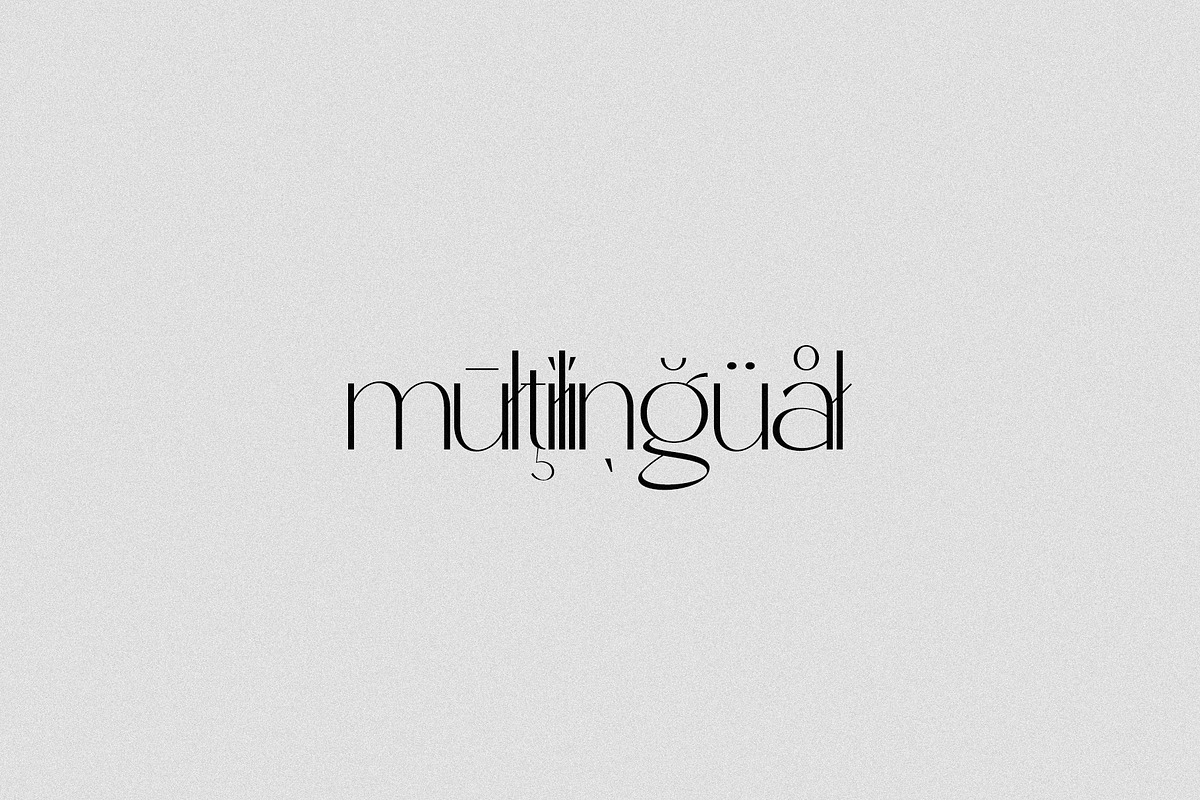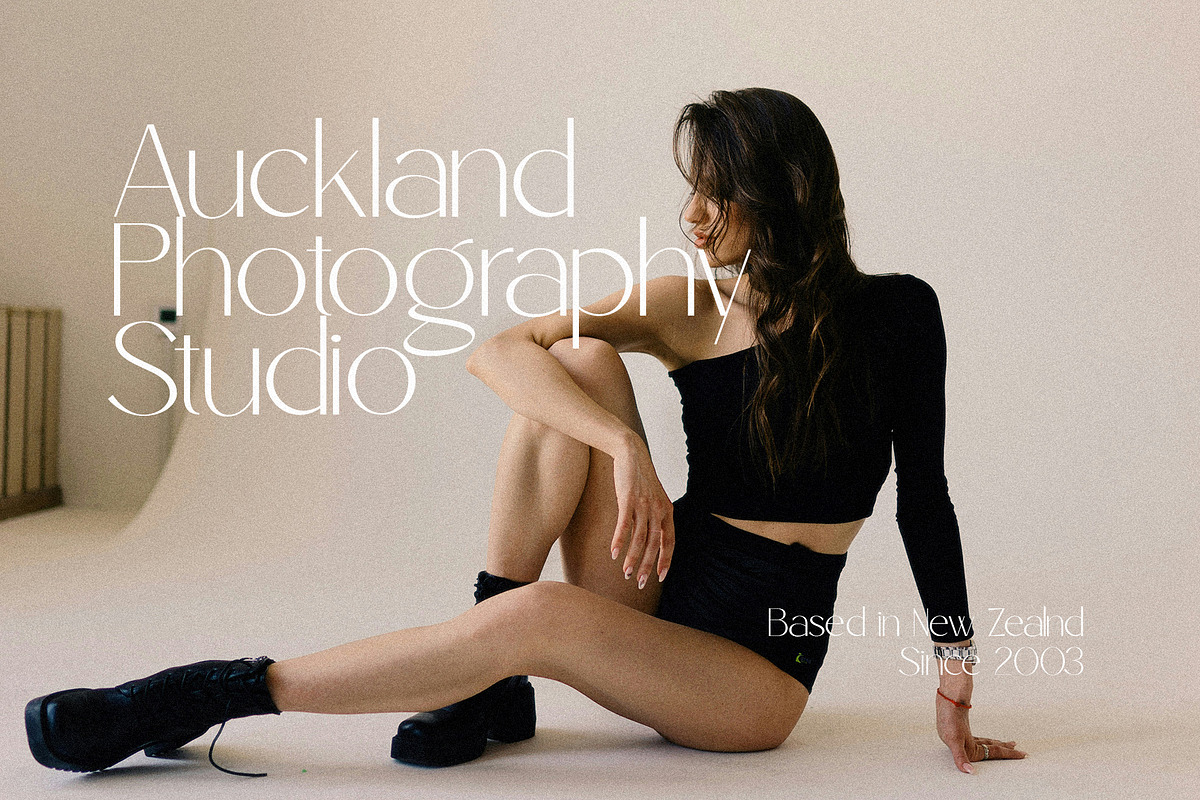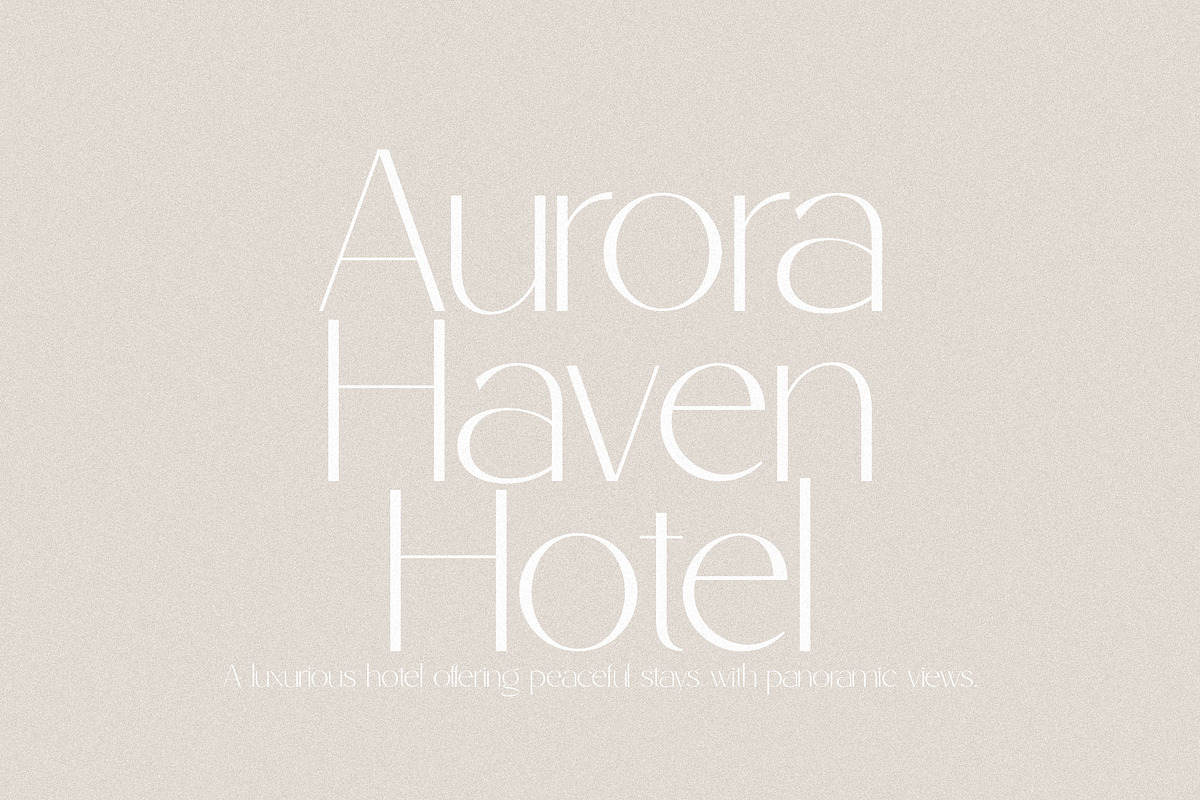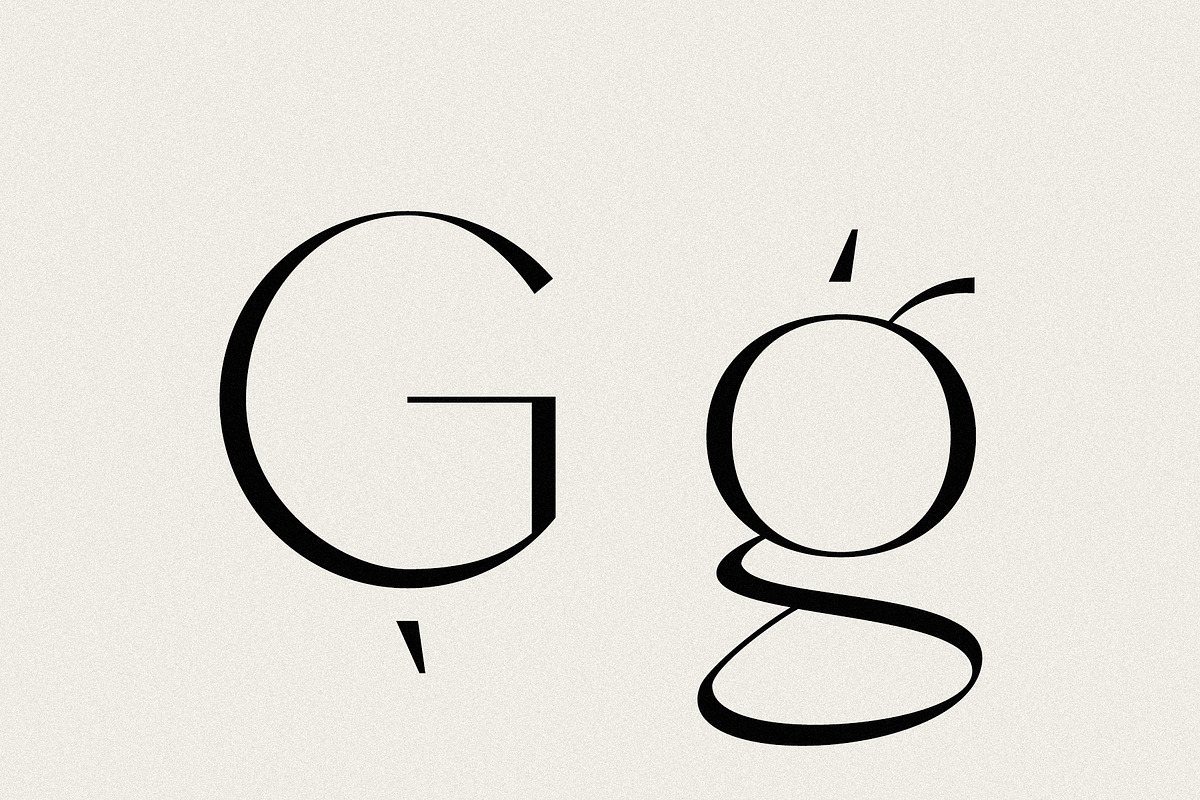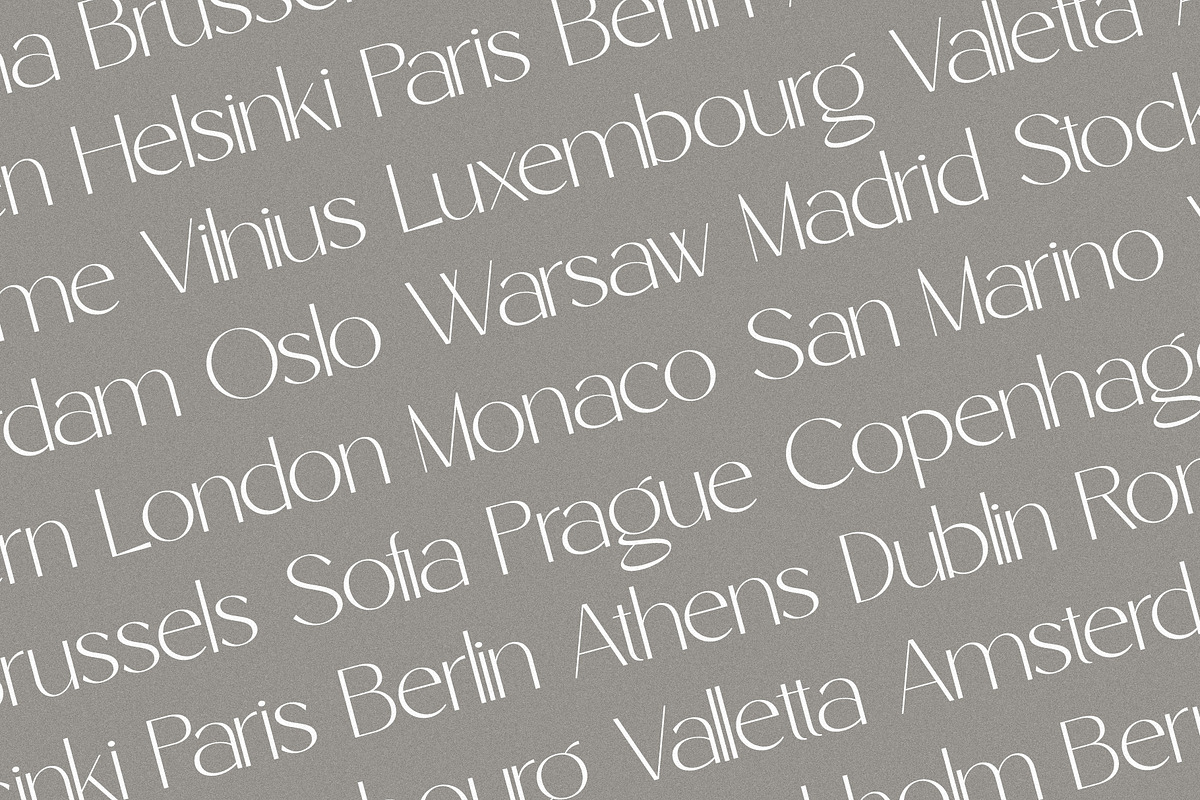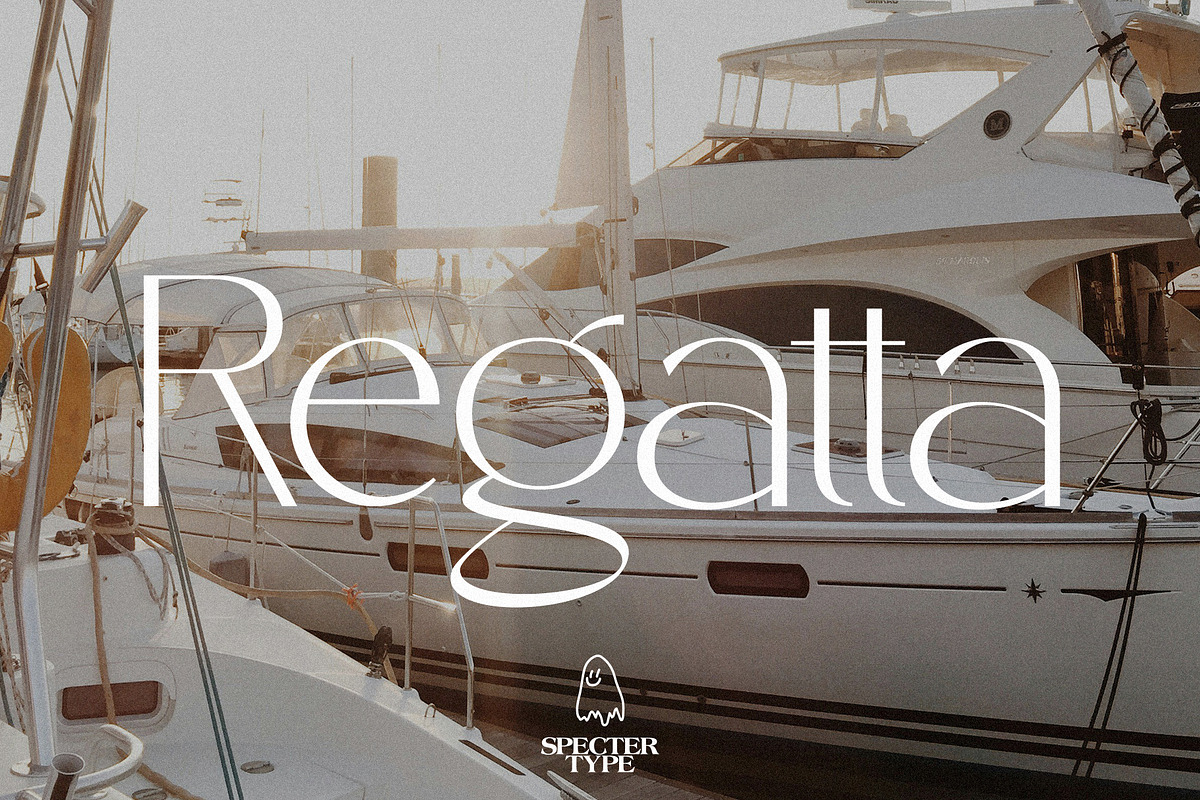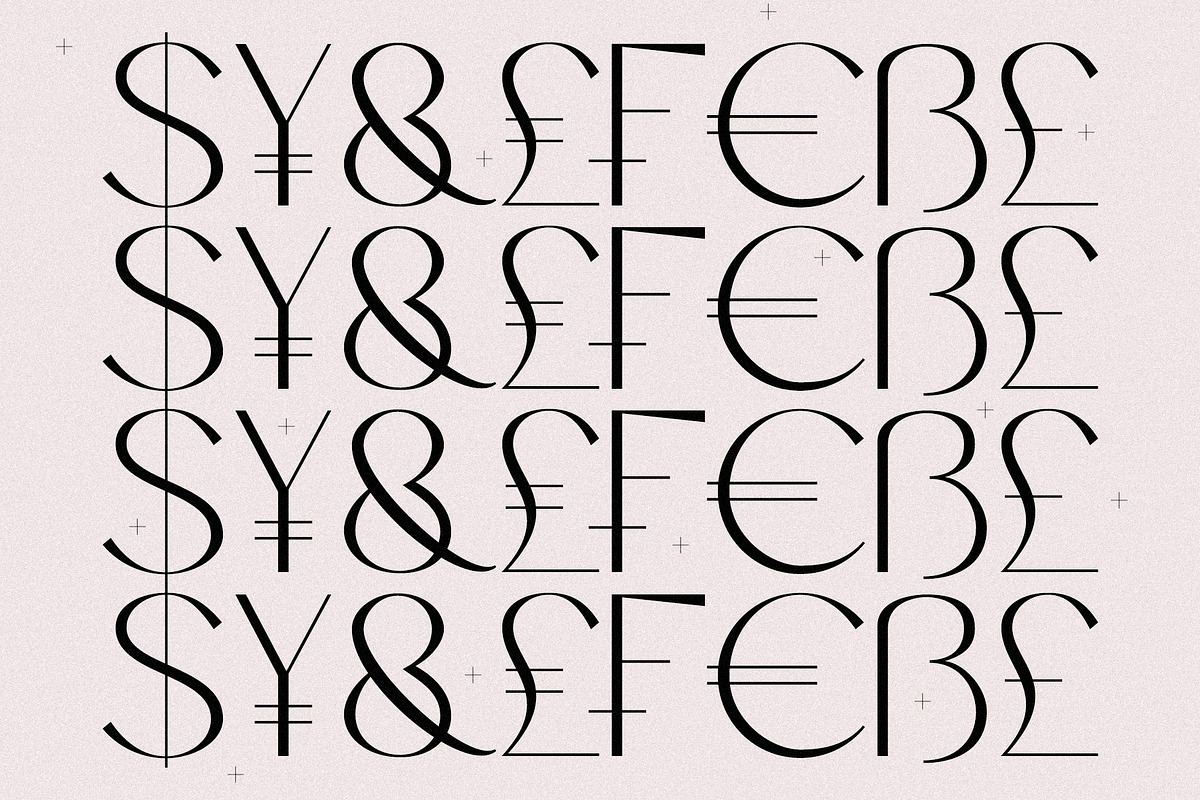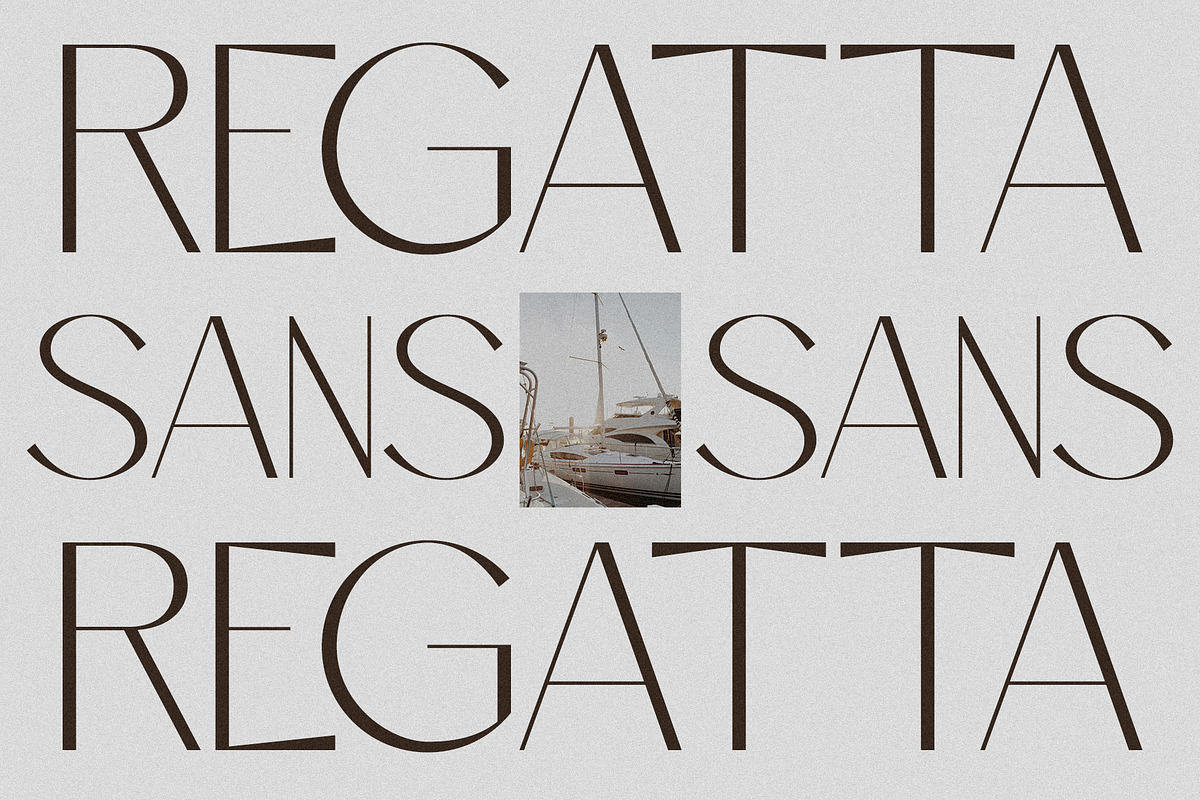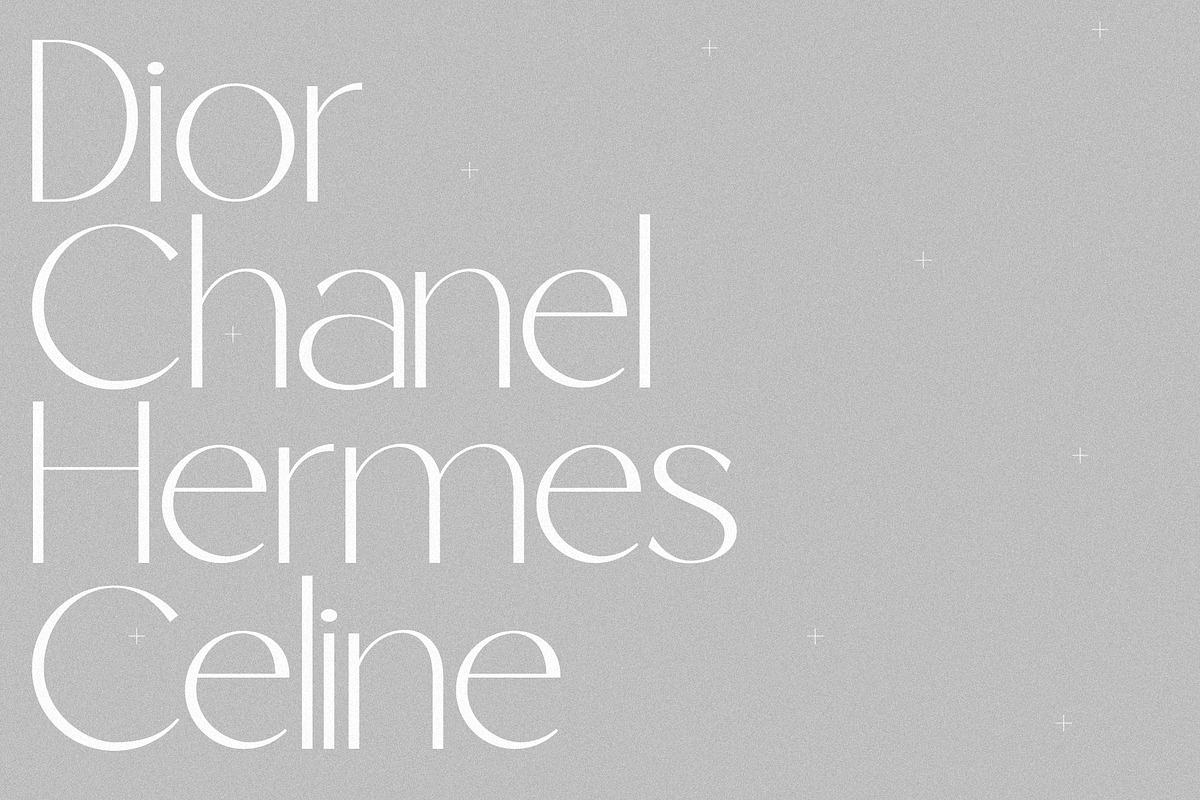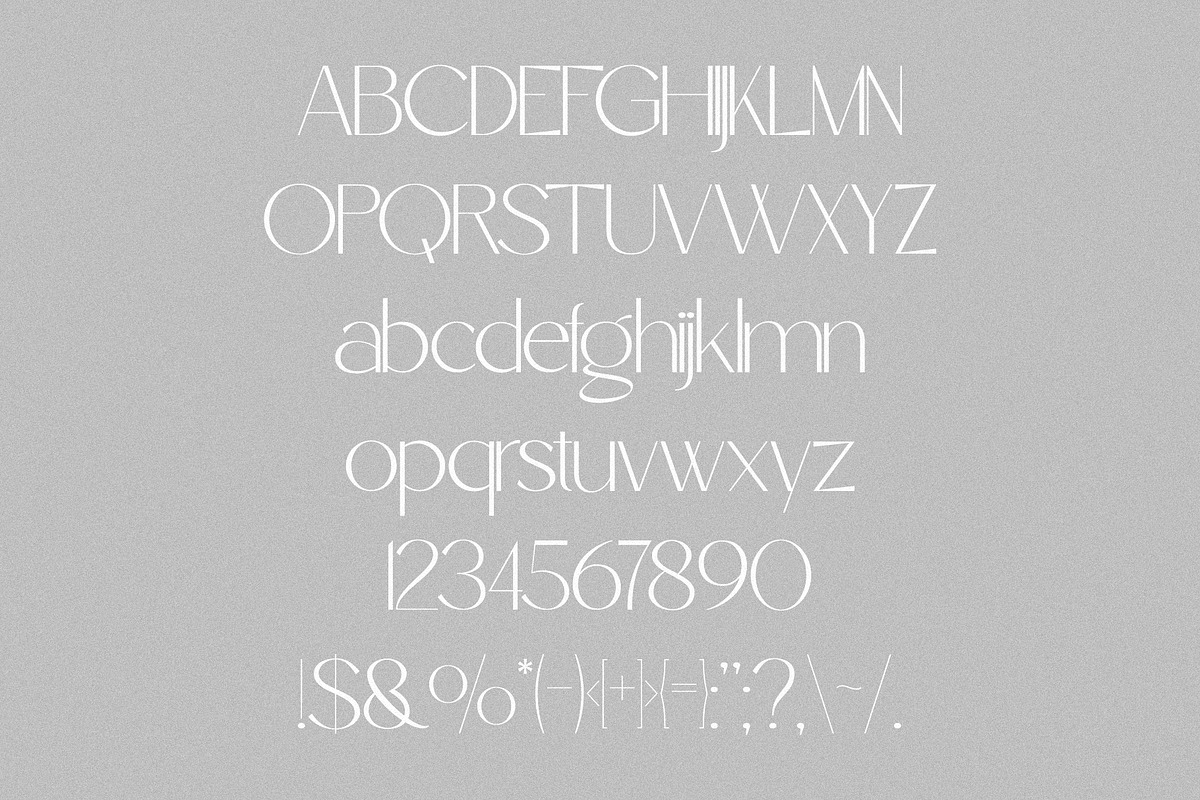
Regatta - Elegant Sans Serif
Regatta - Elegant Sans Serif is a clean, modern typeface with a natural sense of elegance that doesn’t try too hard. Its clean curves and balanced shapes give it a polished, confident feel, making it a great fit for branding, editorials, fashion, or anything that needs a touch of class. It’s easy to read, works beautifully across different uses, and adds just enough personality without getting in the way. Inspired by flow and movement, Regatta strikes a simple, stylish balance that feels both fresh and timeless.
Regatta features uppercase & lowercase letters, numbers & symbols, multilingual support, basic ligatures & over 300+ glyphs.